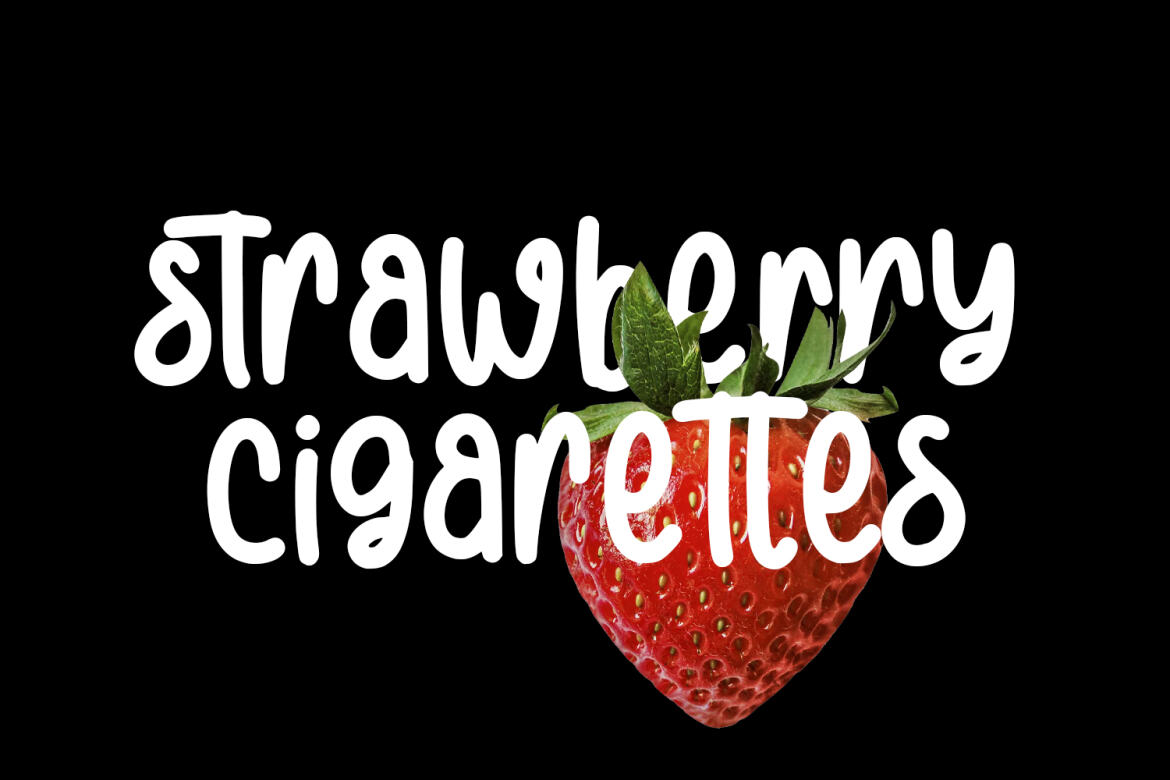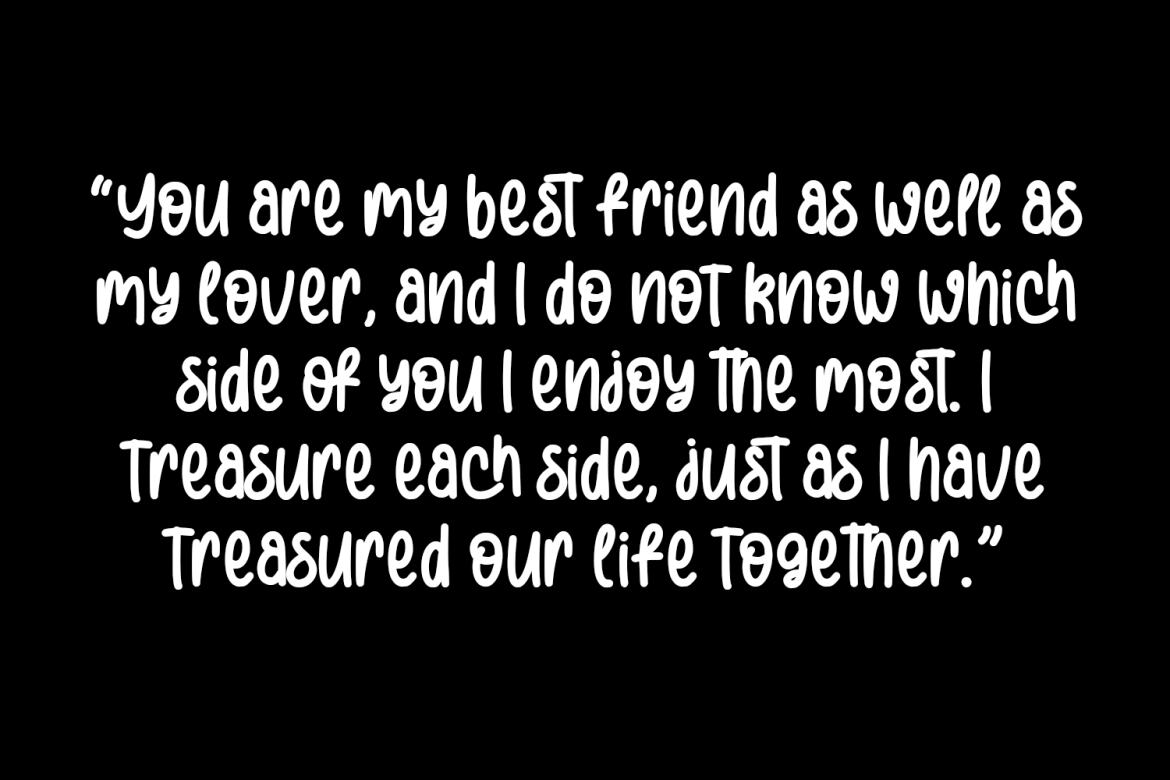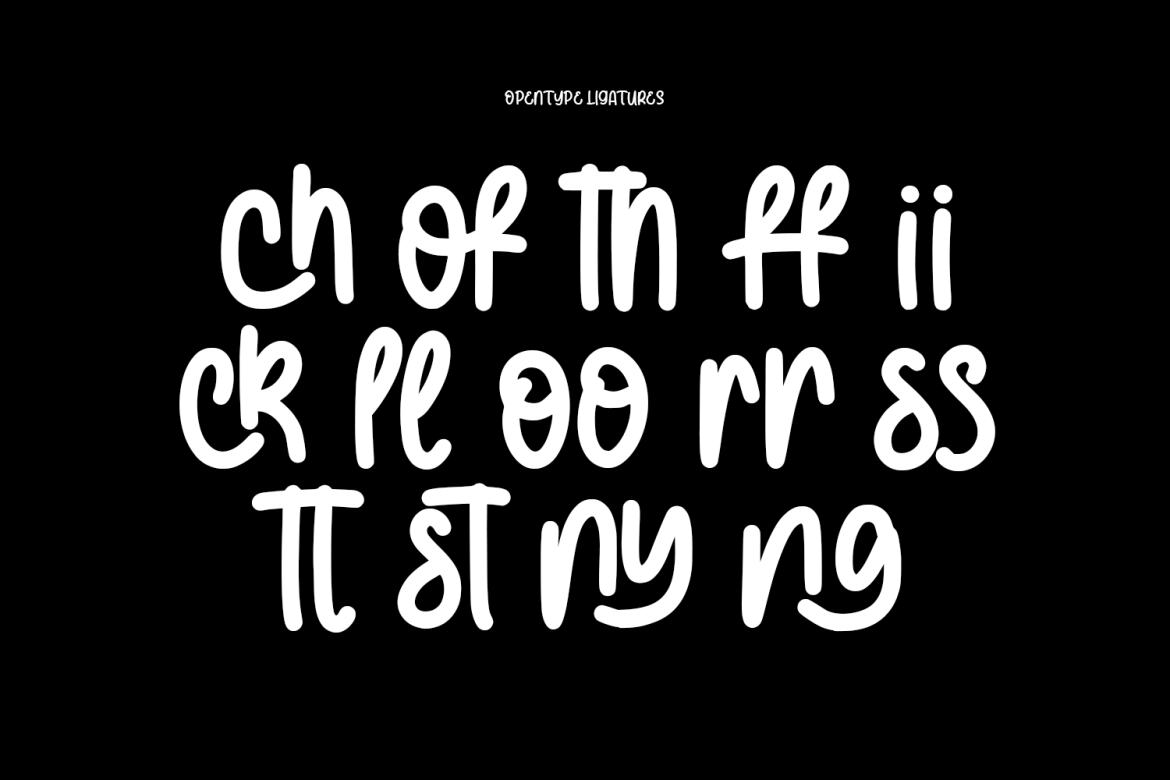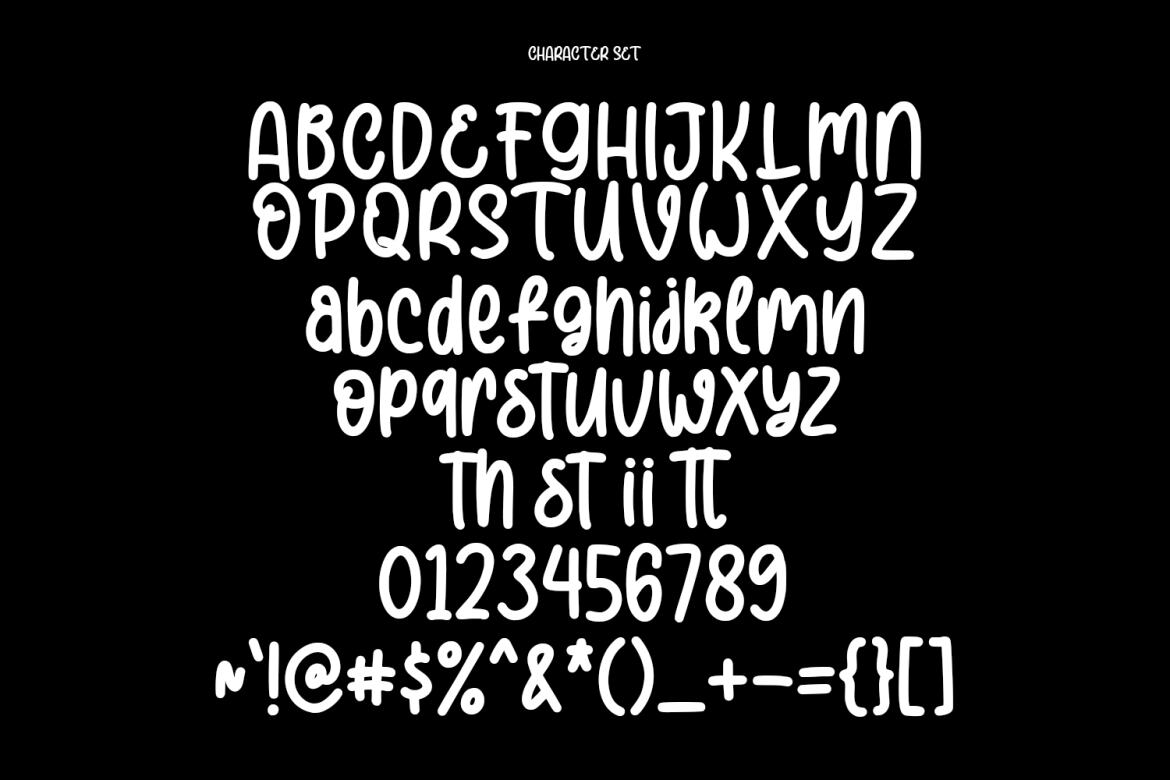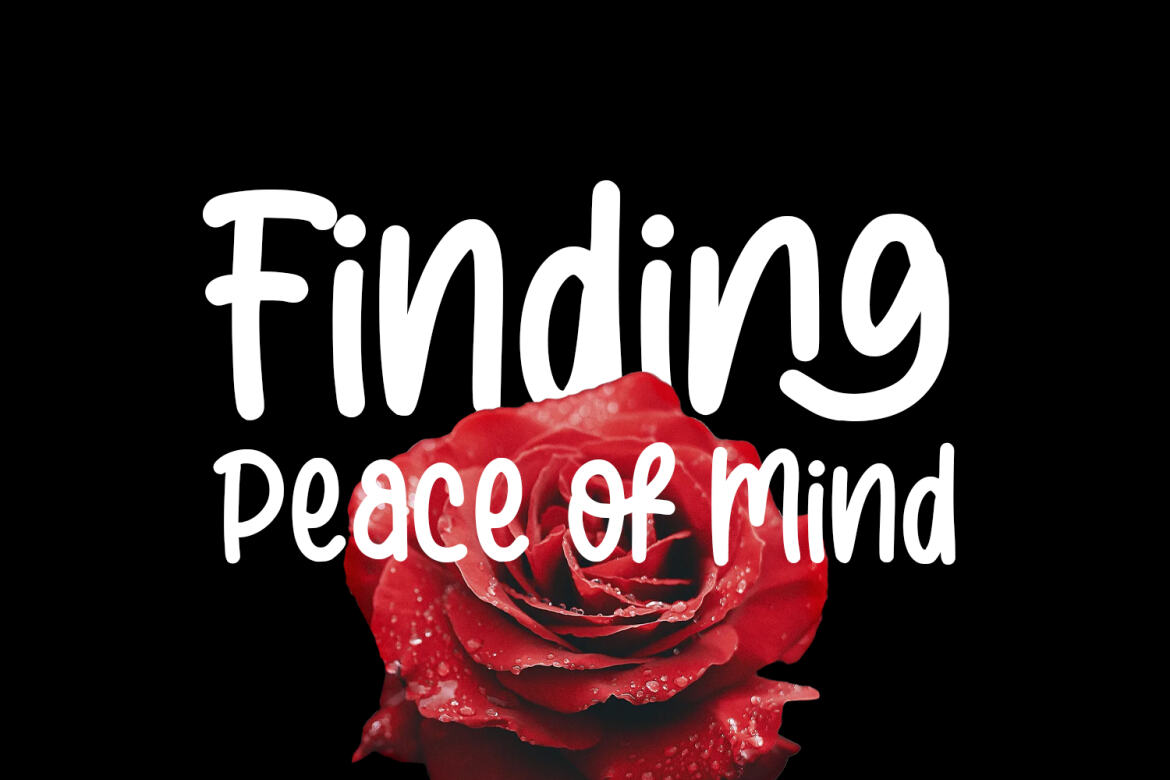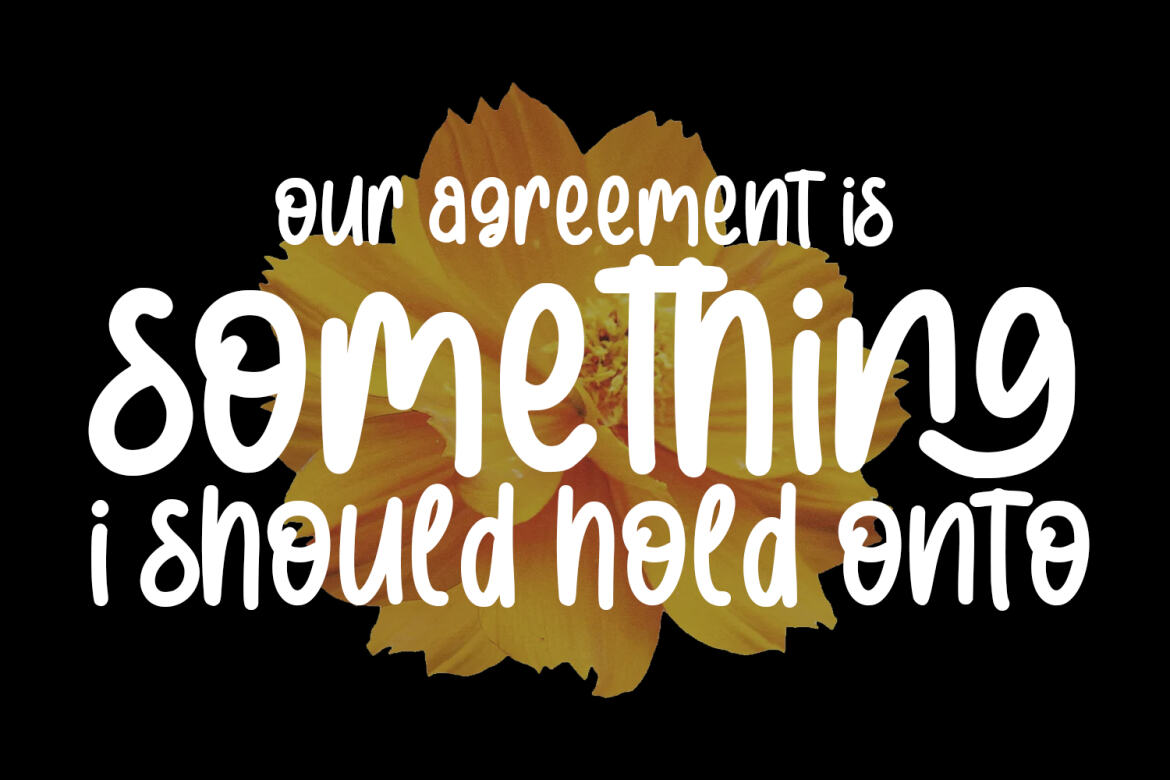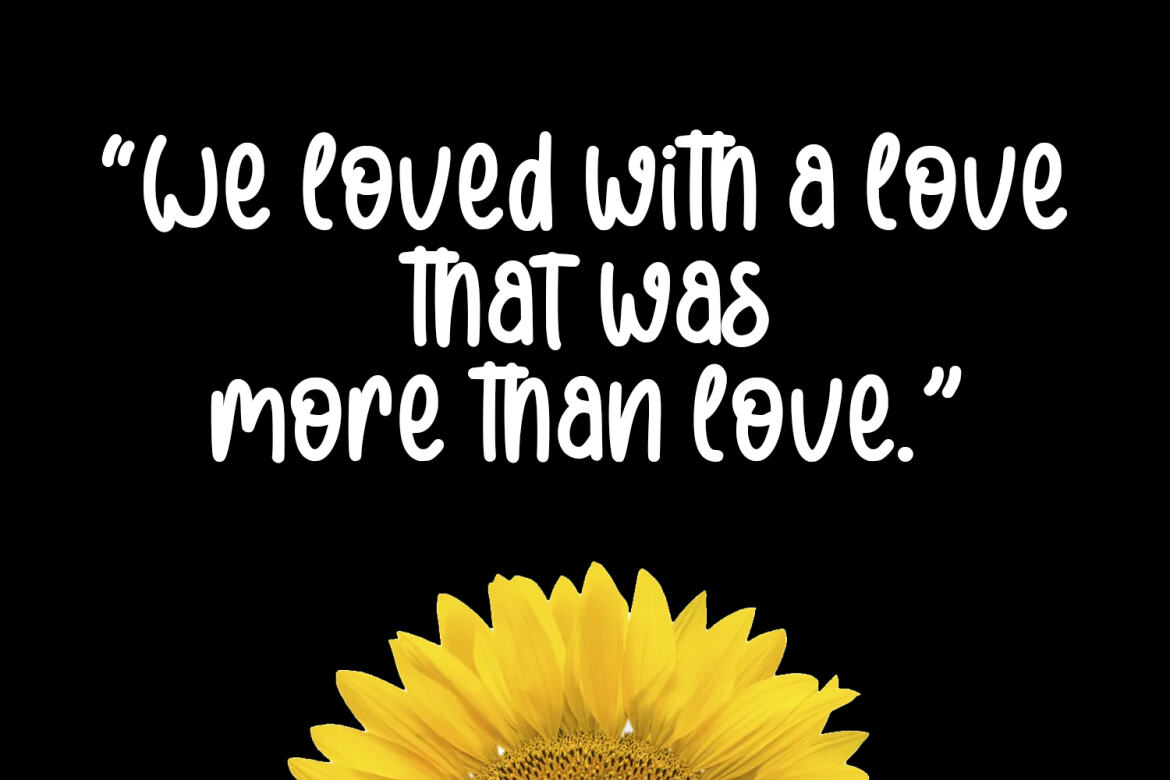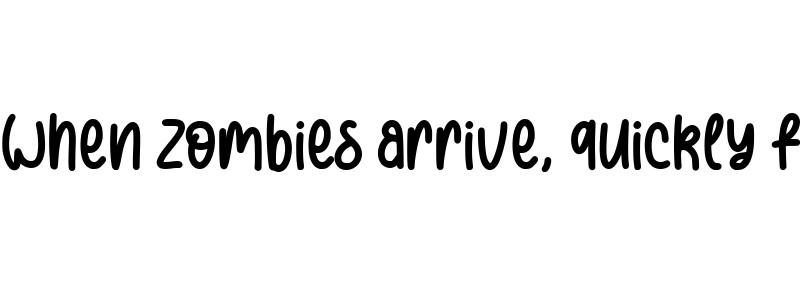
Batternotch Handwritten FREE Font
Batternotch
Batternotch is a casual modern fun font. With regular mono-line stroke, fun character. To give you an extra creative work. Batternotch font support multilingual more than 100+ language. This font is good for logo design, Social media, Movie Titles, Books Titles, a short text even a long text letter and good for your secondary text font with sans or serif. Make a stunning work with Batternotch font.